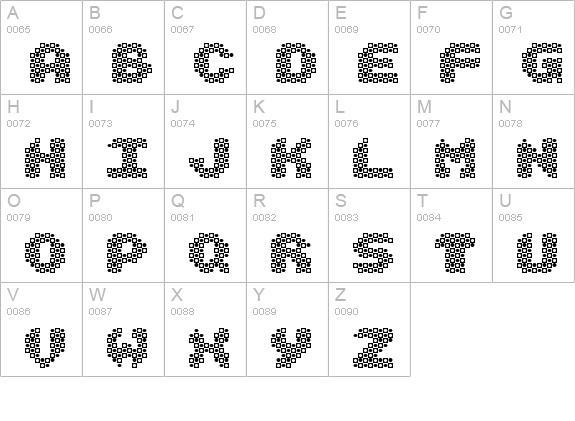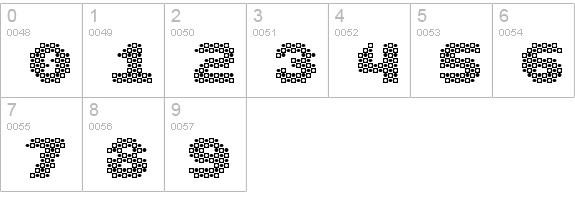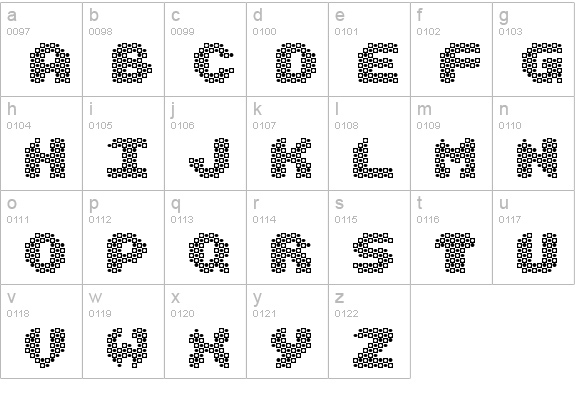
Vasarely Font Details
The Vasarely font is a stunning and versatile typeface that embodies the essence of modernity and creativity. With its unique geometric shapes and mesmerizing patterns, this font will instantly captivate the attention of any reader. Created by the talented designer Victor Vasarely, this font is a true masterpiece that combines simplicity with sophistication. Its clean lines and balanced proportions make it perfect for a wide range of design projects, from logo designs to editorial layouts. One of the best things about the Vasarely font is that it is freely available to download at FontsMarket.com. This means that designers, artists, and anyone in need of a stylish and eye-catching typeface can easily access it without any cost. This font is a true gem that adds a touch of elegance and modernity to any project, and its availability for free makes it even more desirable. Whether you are working on a branding project, a poster design, or a website layout, the Vasarely font will bring a unique and captivating element to your work. Its versatility allows it to be used in both bold and subtle ways, making it a perfect choice for any creative endeavor. So, don't miss out on this amazing opportunity to enhance your designs with the Vasarely font. Download it for free at FontsMarket.com and experience the power of this extraordinary typeface in your own projects. Embrace the modernity, embrace the creativity, and let the Vasarely font elevate your designs to new heights.